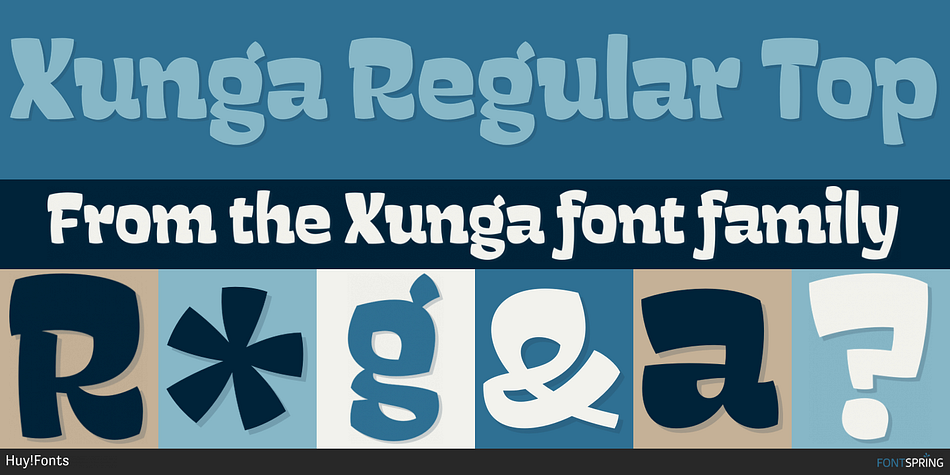
Xunga Regular Top
Designed by Juanjo Lopez, Xunga is a display font family. This typeface has fifteen styles and was published by Huy!Fonts.
Xunga is a cheerful display typeface. My goal was to design a font able to fit any layout with boldness and playfulness, mixing a sign painter taste in the uppercase and some of my crappy calligraphic reverse contrast explorations with the flat brush for the lowercase.
I designed several of widths to fit the page, and though about a different way of expanding the family shifting the horizontal stress axis to move the letter weight in different heights, making a 15 fonts family, suitable for making bold layouts.
Xunga has an extended character set for European languages as well as Vietnamese, and shows all its potential with OpenType-savvy applications. Every font includes ligatures, catchwords in discretional ligatures, contextual alternates to avoid conflictive glyph pairs and localized forms to avoid problems with several glyphs and languages.